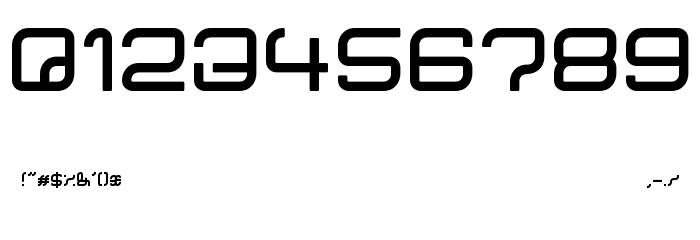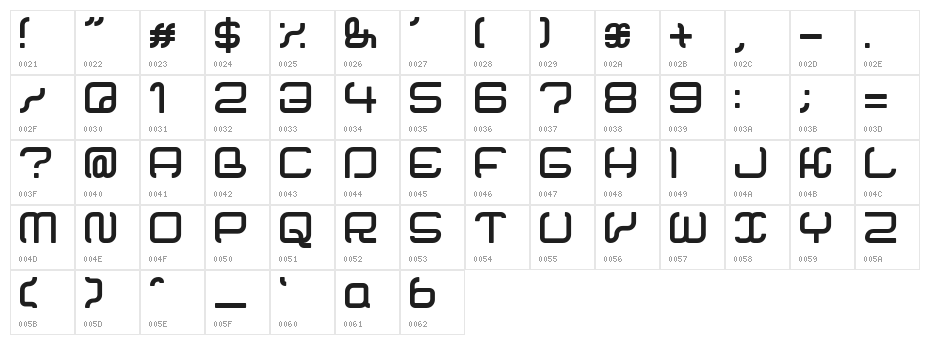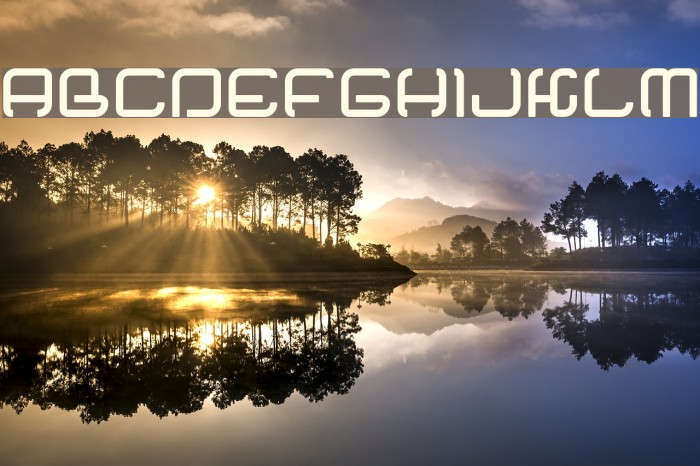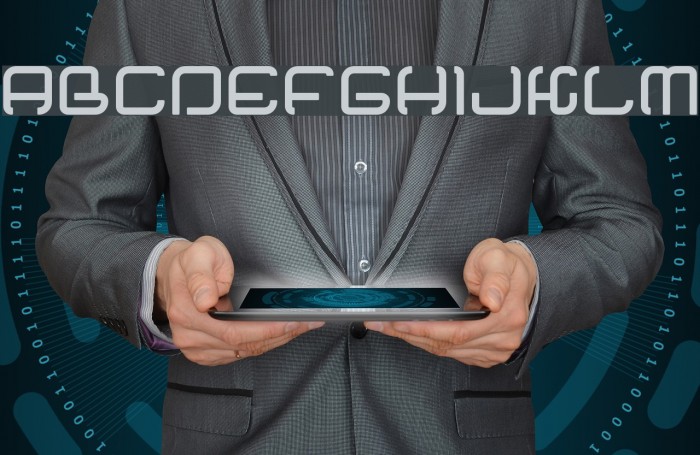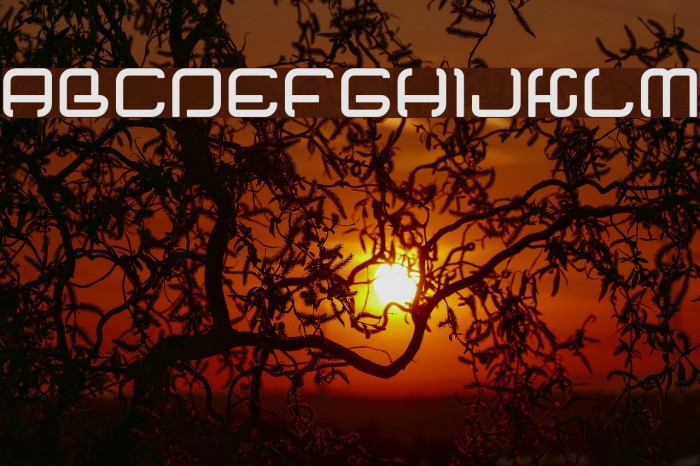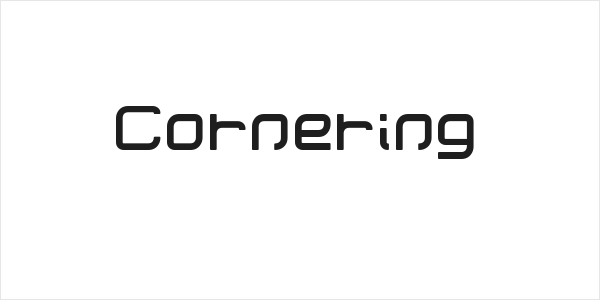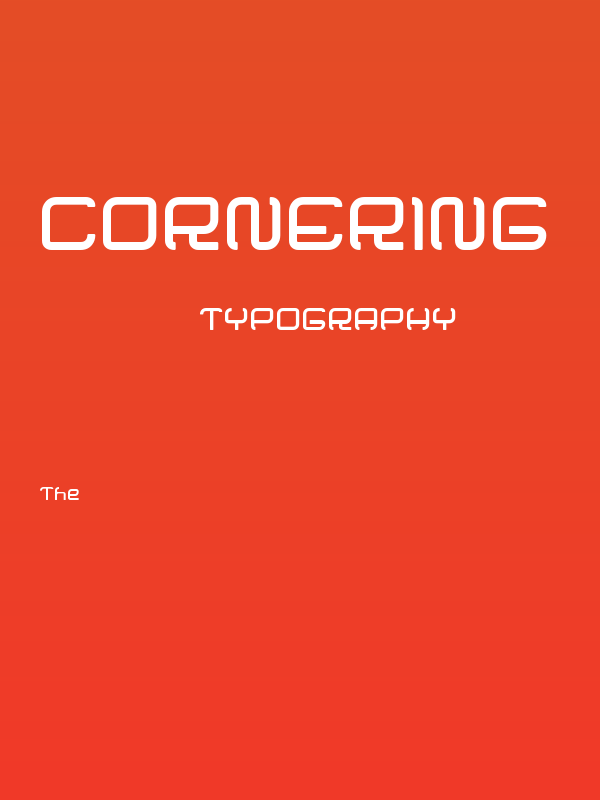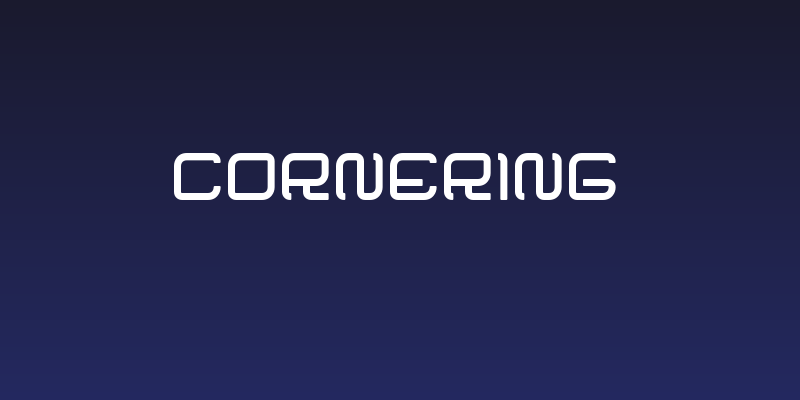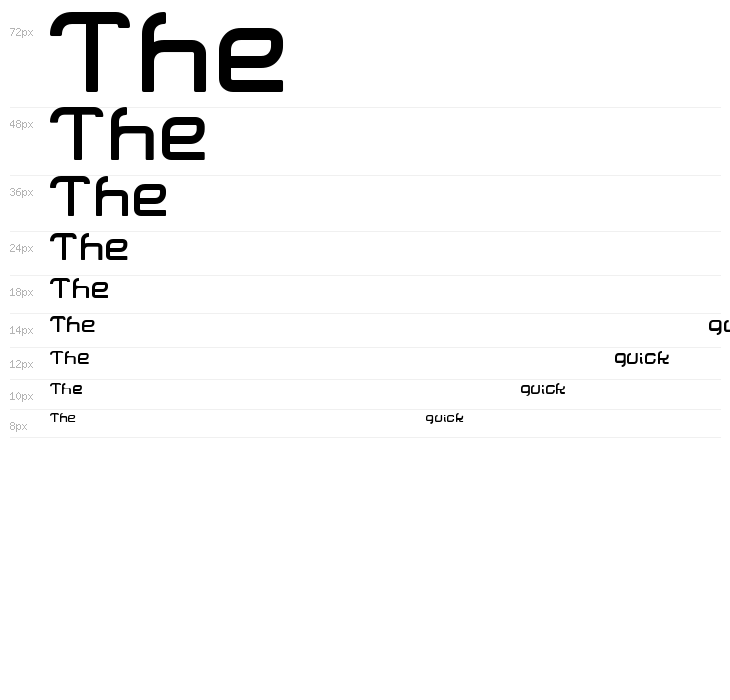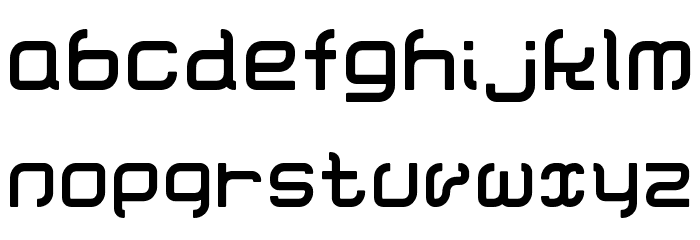
Cornering Font
Cornering Description
This font features a modern, geometric design with rounded corners, giving it a sleek and futuristic appearance. The characters are uniformly structured, maintaining a consistent width and height across both uppercase and lowercase letters. The numerals and special characters follow the same design principles, ensuring a cohesive look. The font's clean lines and lack of serifs contribute to its readability, making it suitable for digital displays and print. Its unique style is both eye-catching and functional, ideal for projects that require a contemporary and innovative touch.
| Use Case | Headlines, Logos, Digital displays |
| Proposed Projects | Ideal for tech branding, digital interfaces, modern advertising, and futuristic-themed projects. |